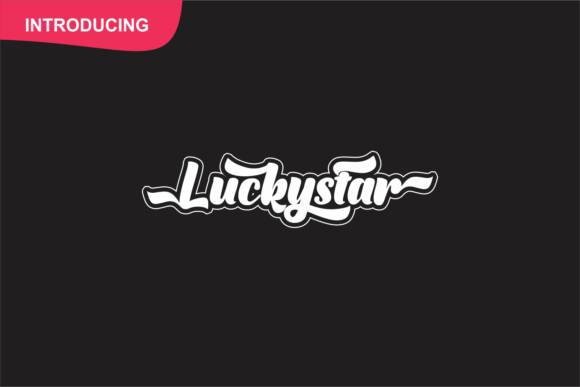
Luckystar Font
Luckystar Bold Script Font
Introducing, Luckystar Bold Script Font. A retro bold script which will bring you back to 60s feel. Made from font designer named DUMADI. This typeface is a strong font space for your design. You can use this font for your design or mockup design. Getting this font will make it easier to design font characters, lots of choices and lots of styles you need.